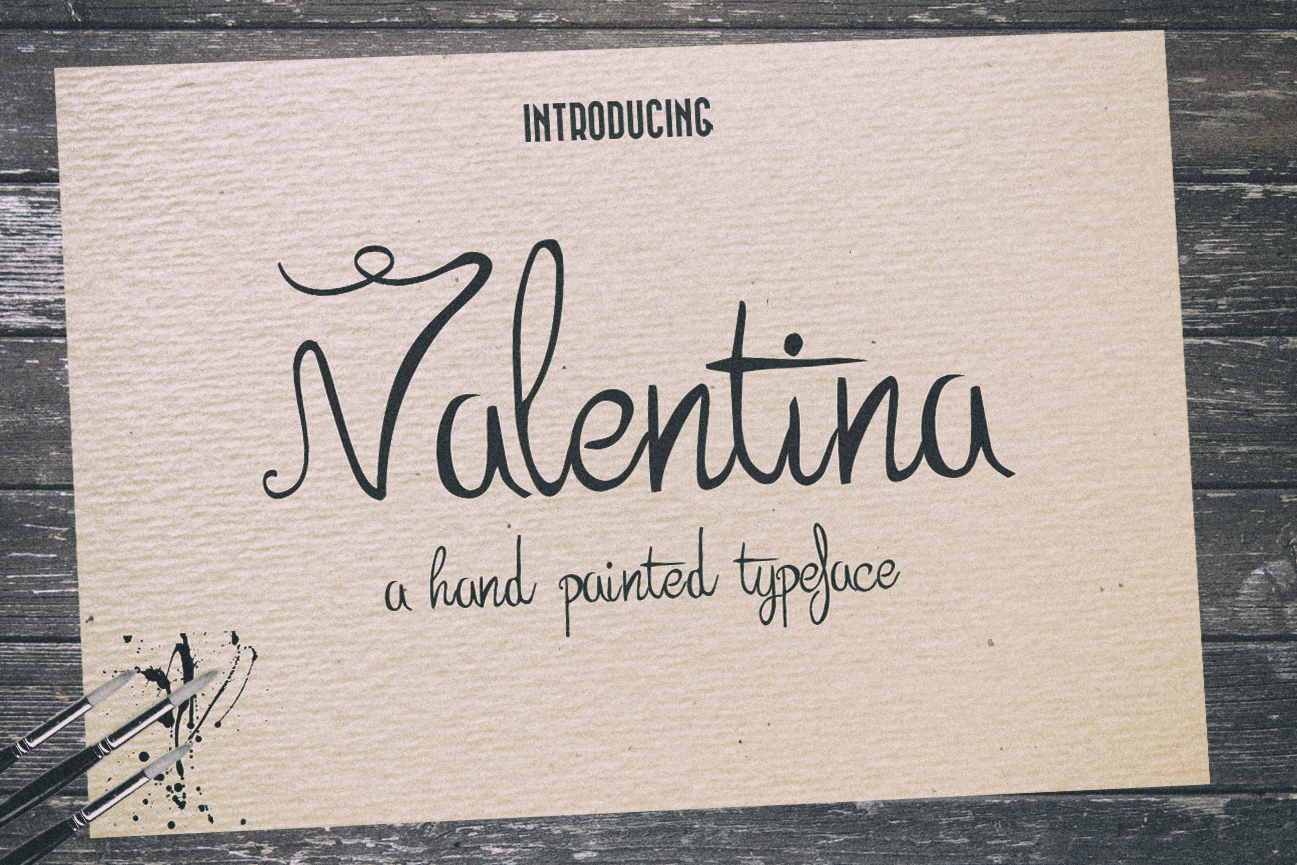
Valentina Typeface + Extras
INTRODUCING VALENTINA, A REALISTIC HAND PAINTED TYPEFACE WITH EXTRAS
Valentina is a realistic hand painted script style typeface. Valentina emulates traditional brushes and inks. It includes awesome OpenType Features like Stylistic Alternates and ligatures.
Valentina Typeface Features:
- Numerals, Punctuations & Accents (Multilingual characters)
- Uppercase Stylistic Alternates